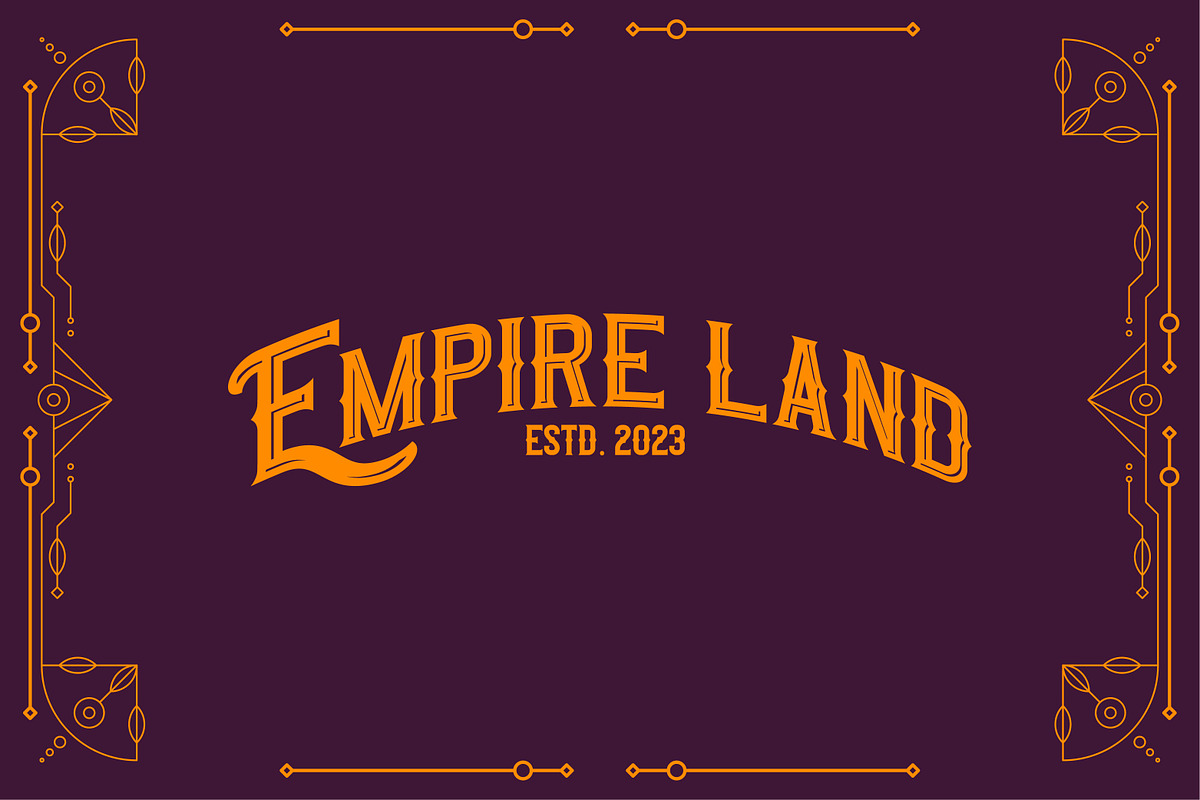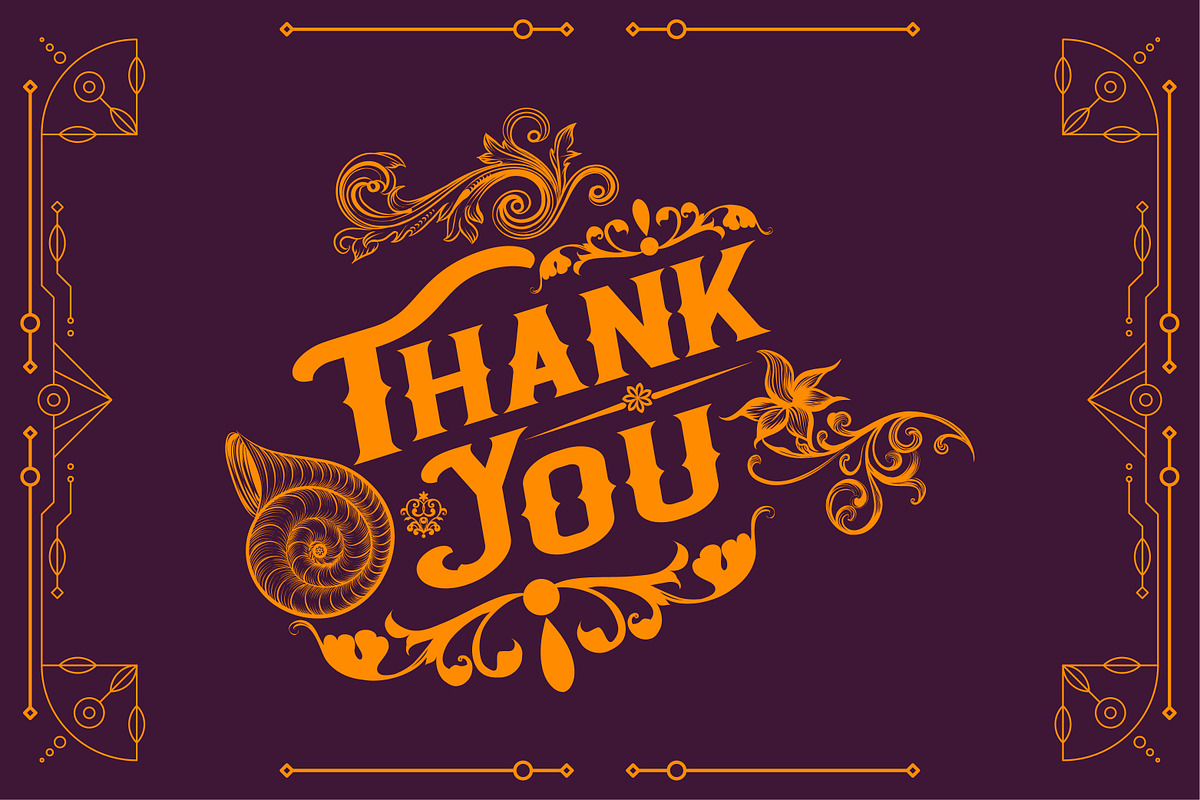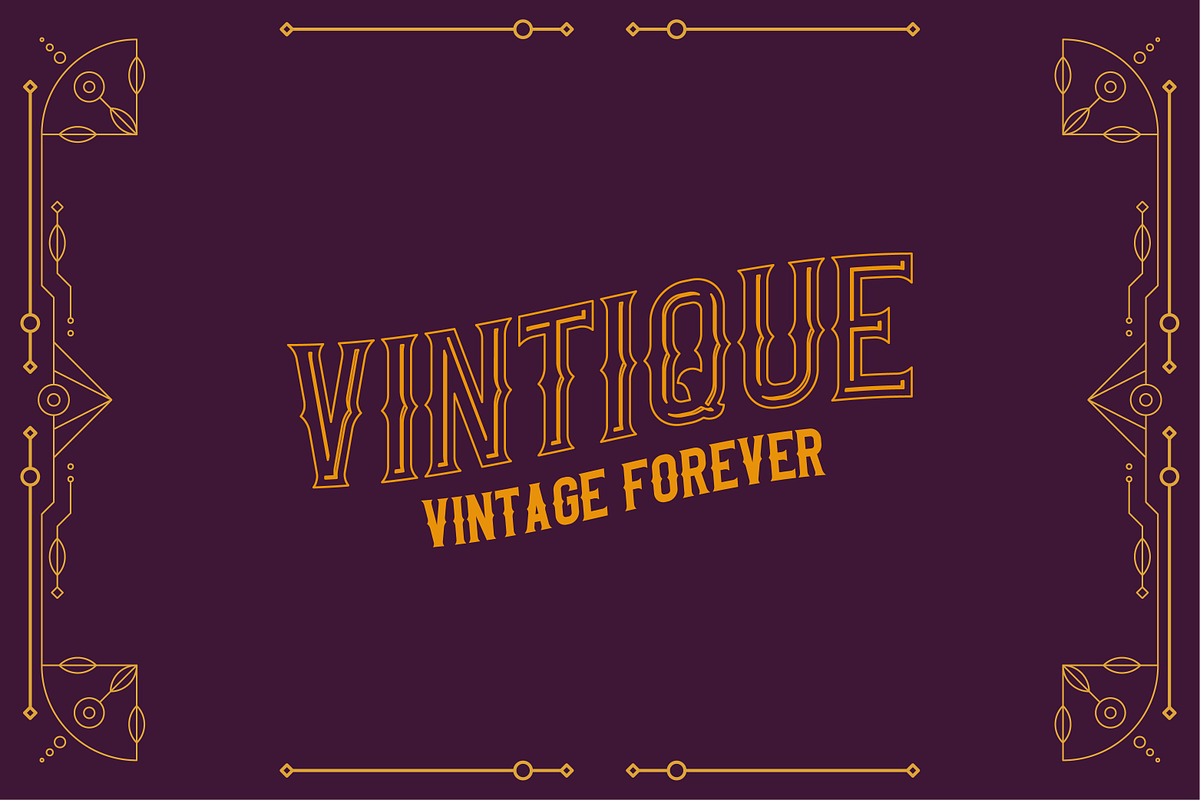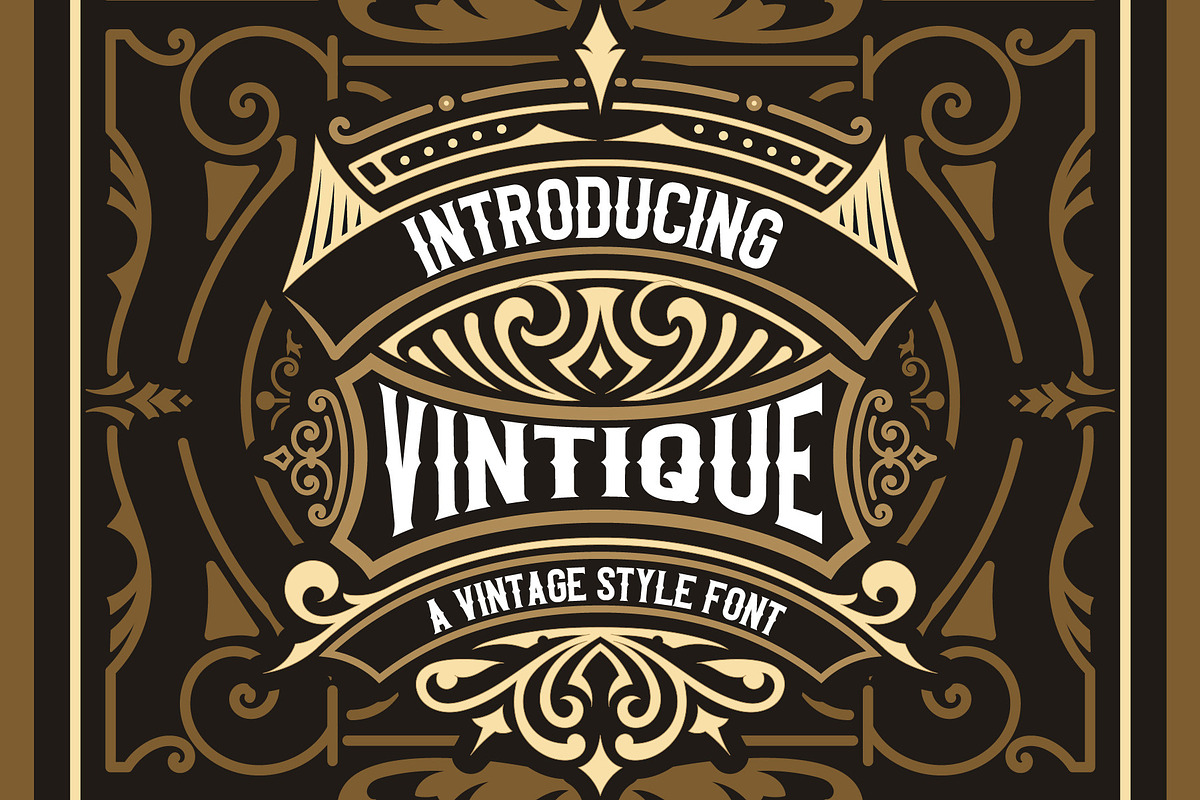
Vintique Vintage Stylist Font
Vintique is a classic and stylish display font: a vintage-inspired typeface perfect for creating designs with an old-world charm. With its bold and striking letterforms, this font exudes a timeless elegance perfect for branding, logos, and other high-impact projects. Its vintage style will add a touch of nostalgia and sophistication to your designs, making them stand out from the crowd.